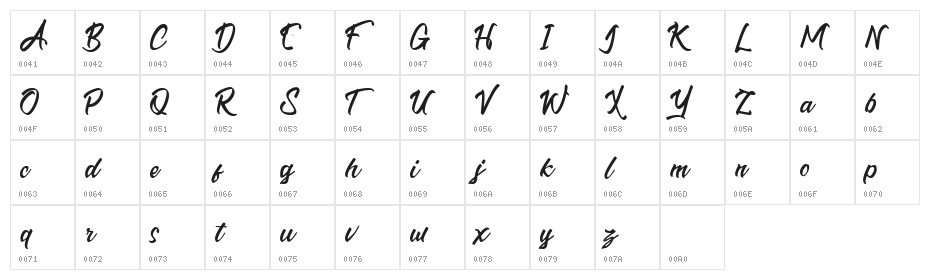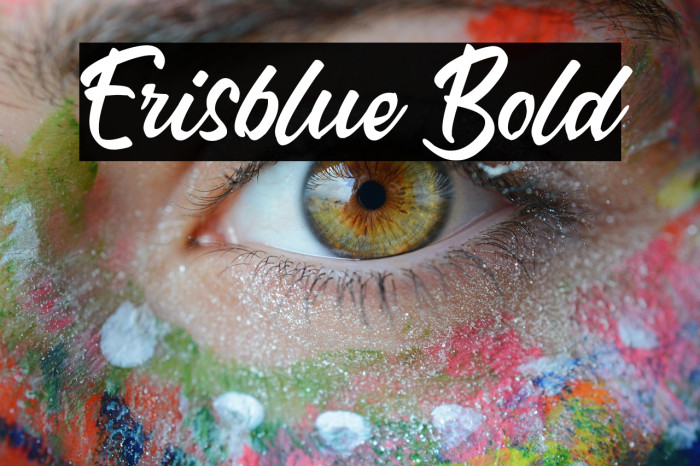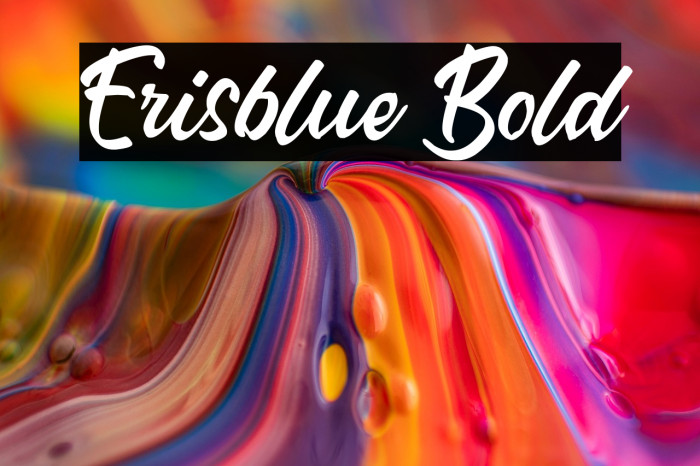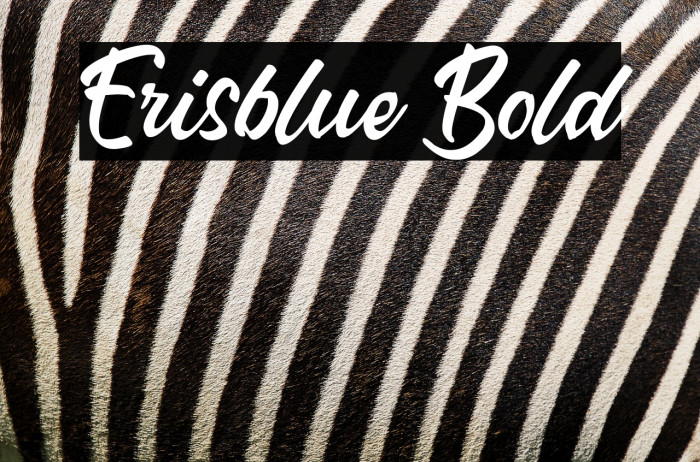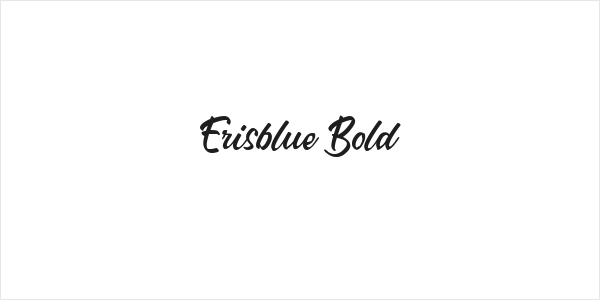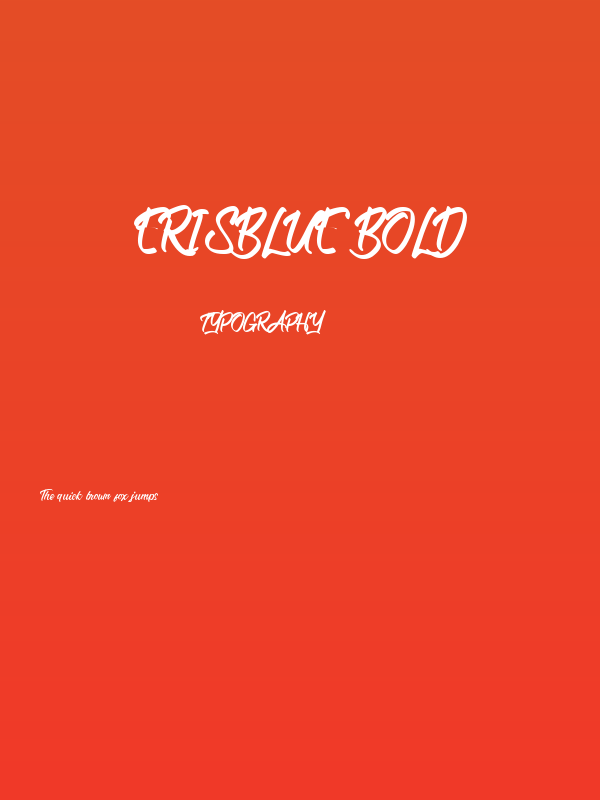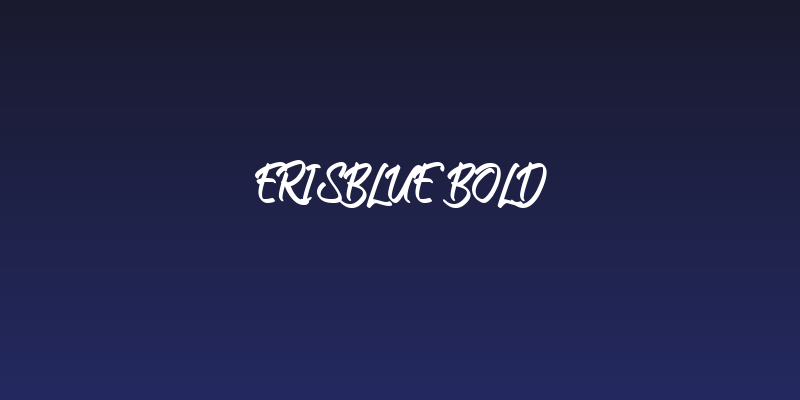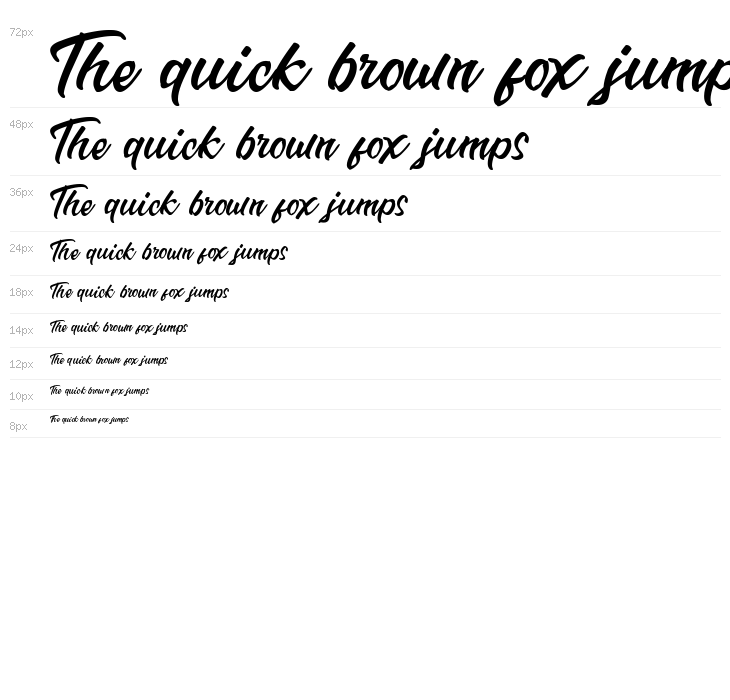
Erisblue Bold Font
Erisblue Bold Description
A bold, cursive script font with a flowing, handwritten style. The letters are connected, giving it a smooth and elegant appearance.
| Use Case | Logos, Invitations, Greeting cards |
| Proposed Projects | Invitations, greeting cards, branding, and logos. |